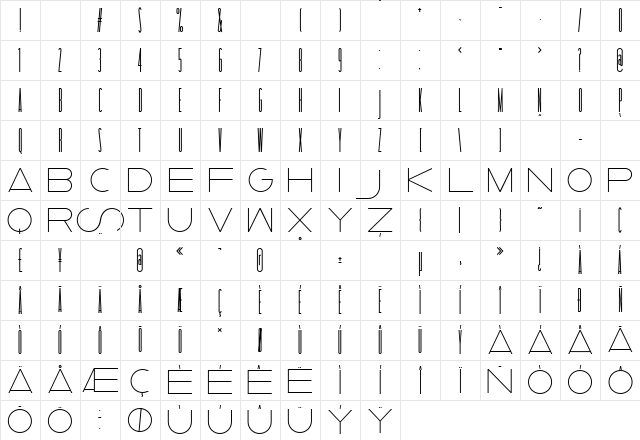
taller evolution Regular
Foundry: Cosimo Lorenzo Pancini
Designer: Cosimo Lorenzo Pancini
Design Context for taller evolution
taller evolution is a composed and adaptable typeface that performs quietly and consistently across a wide range of design contexts.